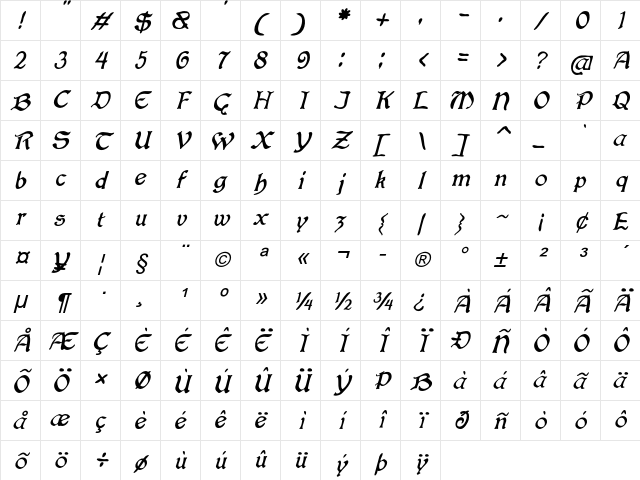
King Lear is a composed and adaptable typeface that performs quietly and consistently across a wide range of design contexts. The slanted form adds forward momentum and visual energy.